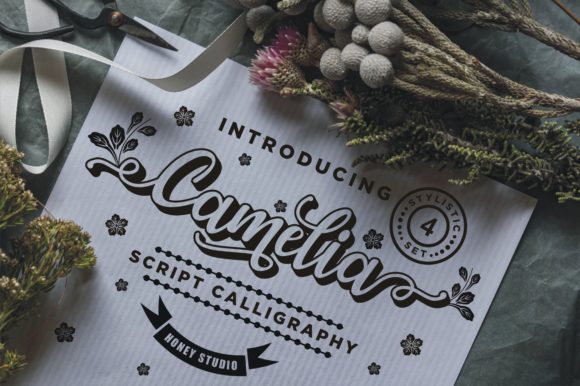
The Sweet Charm of Camelia Font: A Designer’s Delight
I’ll never forget the time I was working on a whimsical craft project, pouring my heart into creating the perfect invitation. I had the design concept nailed, but something was missing – the right font. That’s when I stumbled upon Camelia, a sweet and authentic handwritten font that instantly captured the playful feel I was going for. Its bold swashes and elegant curves won me over, and I knew right then that I’d found my perfect match.
An Honest Review of Camelia Font
What I Love About Camelia ✨
• ✅ The playful, hand-crafted feel that adds a personal touch to any design
• ✅ Beautifully designed swashes that can be used to create stunning titles and headings
• ✅ Extensive character set, including support for multiple languages
• ⚠️ Some users may find the font a tad too ornate for very formal or minimalist designs
• ⚠️ Limited availability of condensed or italic versions, which may limit its use in certain contexts
The Story Behind Camelia Font
Camelia font was designed with the intention of capturing the sweet, playful essence of handwritten typography. Its creator drew inspiration from traditional calligraphy and modern digital design to craft a font that’s both authentic and versatile. Whether you’re working on a craft project, designing a logo, or creating social media graphics, Camelia is sure to bring a touch of whimsy and charm to your work.
What makes Camelia font unique? Camelia’s unique blend of playful swashes and elegant curves makes it a standout among other script fonts.
Is Camelia suitable for body text? While Camelia is highly legible, it’s best suited for titles, headings, and short paragraphs due to its ornate nature.